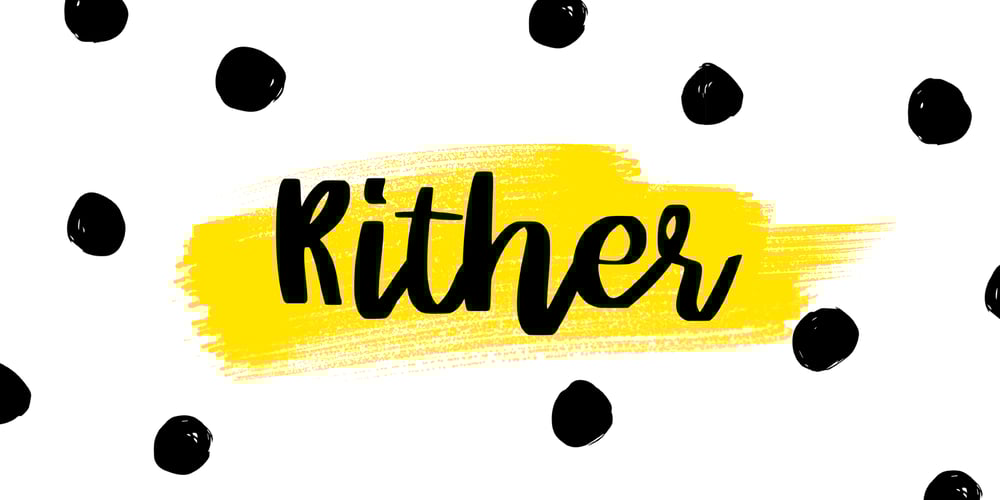
Rither Font Family was designed by Hleb Zhyhunou and published by Mr. Typeman. Rither contains 1 styles and family package options. Do you want to give a cheerful and carefree mood to your work? Rither will ideally help to bring your ideas into reality! Rither was created for warm emotions and the most cheerful projects!